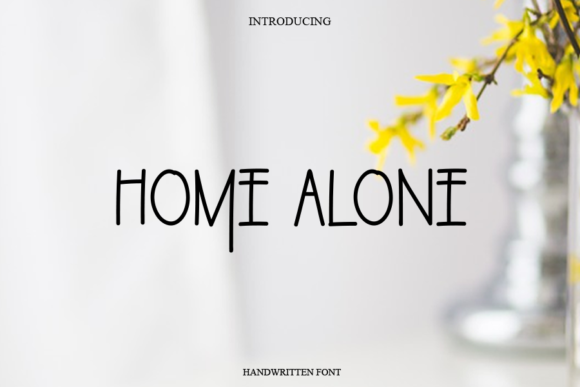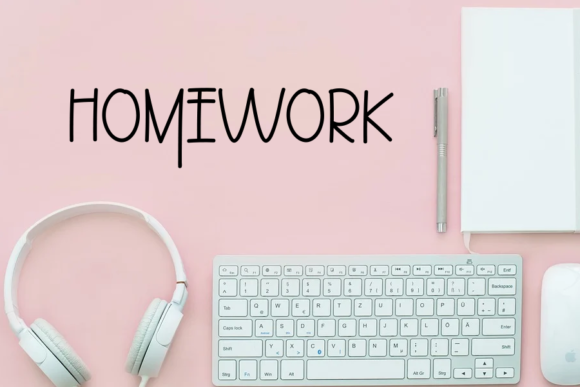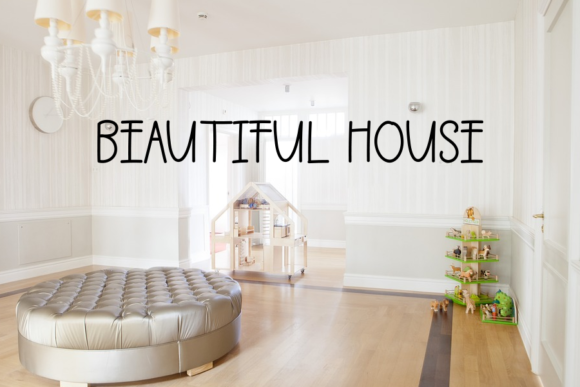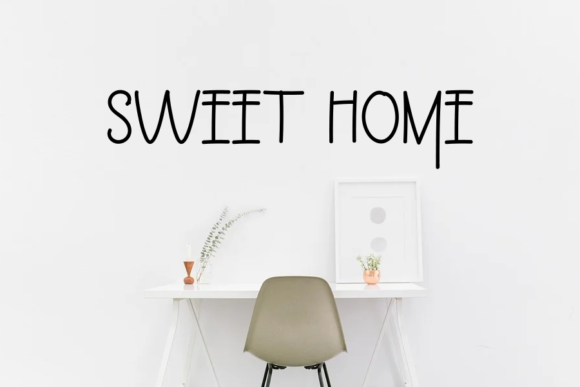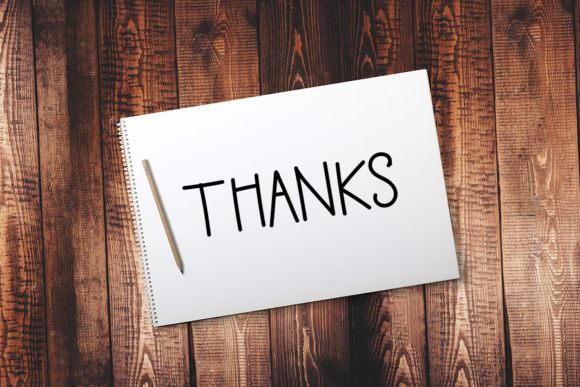
Home Alone Font
About Home Alone Font
Introducing Home Alone, a thin lettered and simple handwritten font that adds a touch of authenticity and realism to your designs. This font is perfect for chalkboard quotes, teaching materials, or any project where you want to create a personal and realistic feel.
Home Alone’s thin letterforms and simple handwritten style set it apart as a font that captures attention while maintaining a clean and authentic look. Each letter is crafted with precision and simplicity, creating a visually appealing composition. This balance of thinness and simplicity adds versatility and charm to your designs, making them stand out.
The versatility of Home Alone allows it to shine in various design contexts. Whether you’re creating chalkboard quotes, educational materials, social media graphics, or any other creative endeavor, Home Alone adds a touch of authenticity and personalization. Its handwritten nature creates a visually engaging and relatable aesthetic that enhances the overall visual appeal.
Home Alone’s thin letterforms and simple handwritten style make it suitable for a wide range of designs. The clean lines and minimalistic approach make it perfect for adding a personal and realistic touch to your projects. Whether used for creating teaching materials, inspirational quotes, or any other application, Home Alone brings a sense of authenticity and simplicity.
No matter the context or design project, Home Alone has the potential to enhance any creation. Its thin letterforms and simple handwritten style make it suitable for various design projects. Let Home Alone add a touch of authenticity and realism to your designs, creating visually captivating compositions that leave a lasting impression.
In summary, Home Alone is a thin lettered and simple handwritten font that adds authenticity and realism to your designs. Its clean and simple style captures attention while maintaining a personal and realistic feel. Embrace the versatility of Home Alone and let it enhance the authenticity and uniqueness of your creations, creating visually captivating designs that leave a lasting impression.